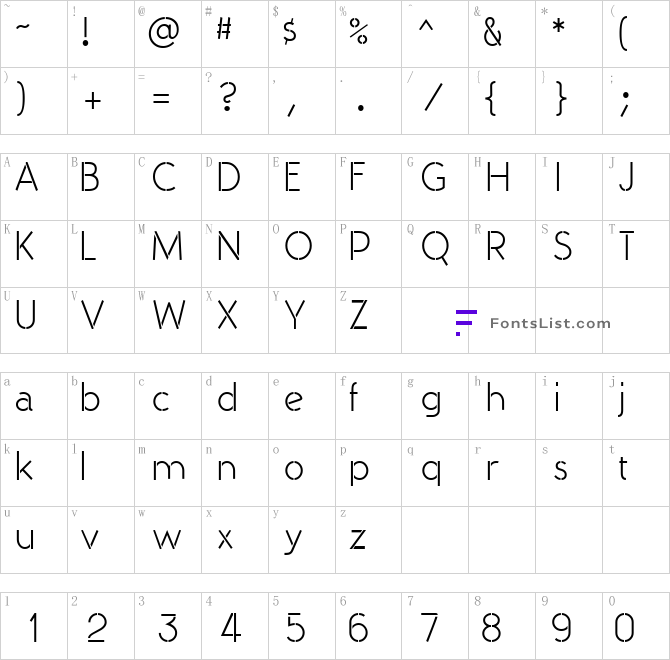
- Font Name:AndrewAndyStencil
AndrewAndyStencil.ttf is a very beautiful artistic font, AndrewAndyStencil.ttf is widely used in the design and printing of various books and pictures,AndrewAndyStencil.ttf has a strong visual impact,AndrewAndyStencil.ttf is a commonly used font in newspapers, magazines and books, and is used in posters, e-commerce Poster design, store design, logo design, font design and other fields.AndrewAndyStencil.